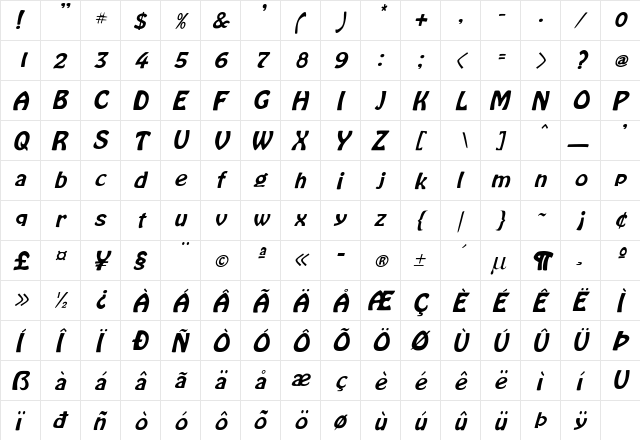
LaCosta Italic
Design Context for LaCosta Typeface
LaCosta offers clean, dependable letterforms without strong stylistic allegiance, making it a practical choice for designers who need flexibility. The slanted form adds forward momentum and visual energy.
Pro Tip: Try LaCosta for annotation and caption copy alongside an upright companion — the contrast in angle creates a dynamic but ordered typographic system.